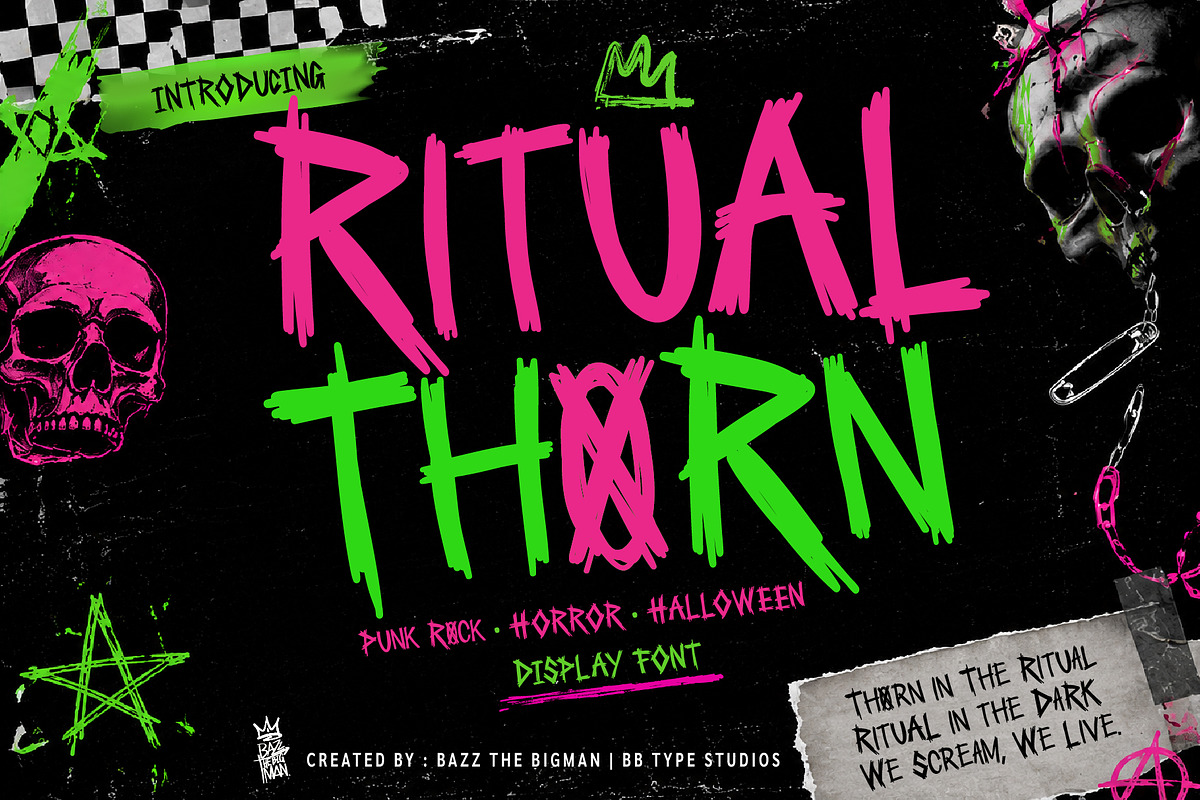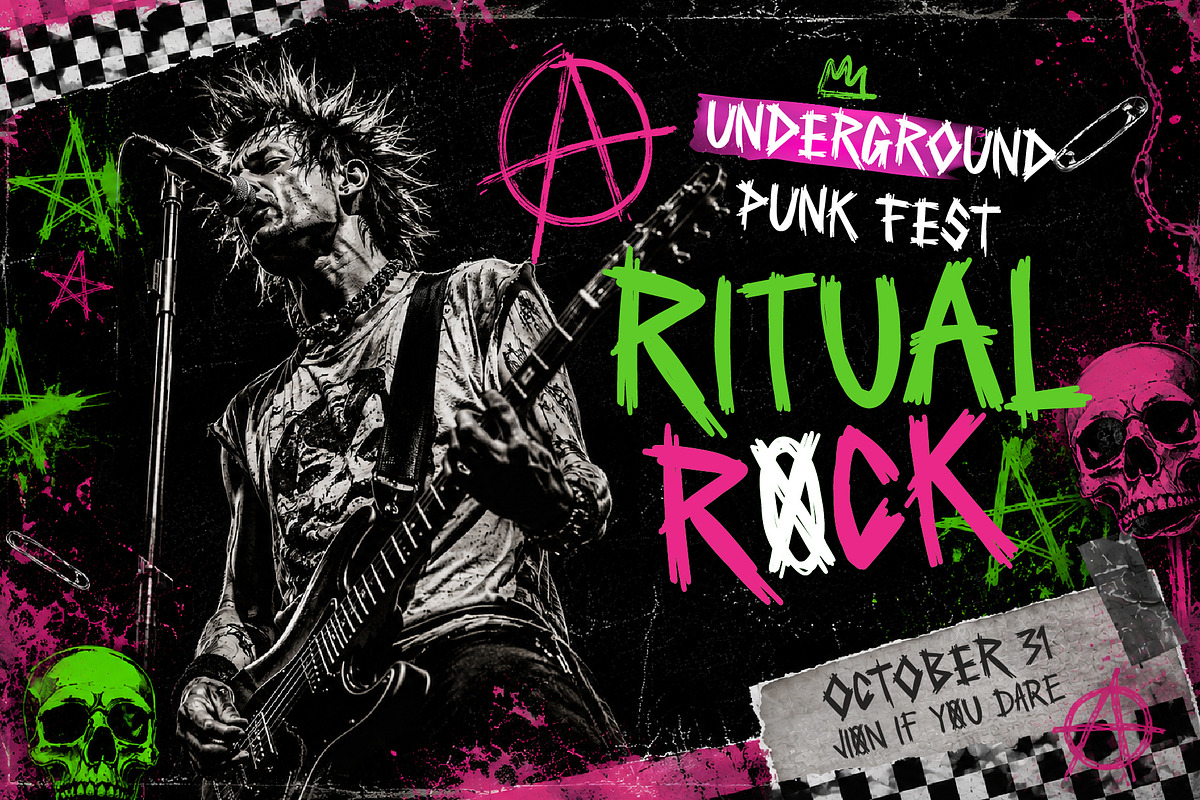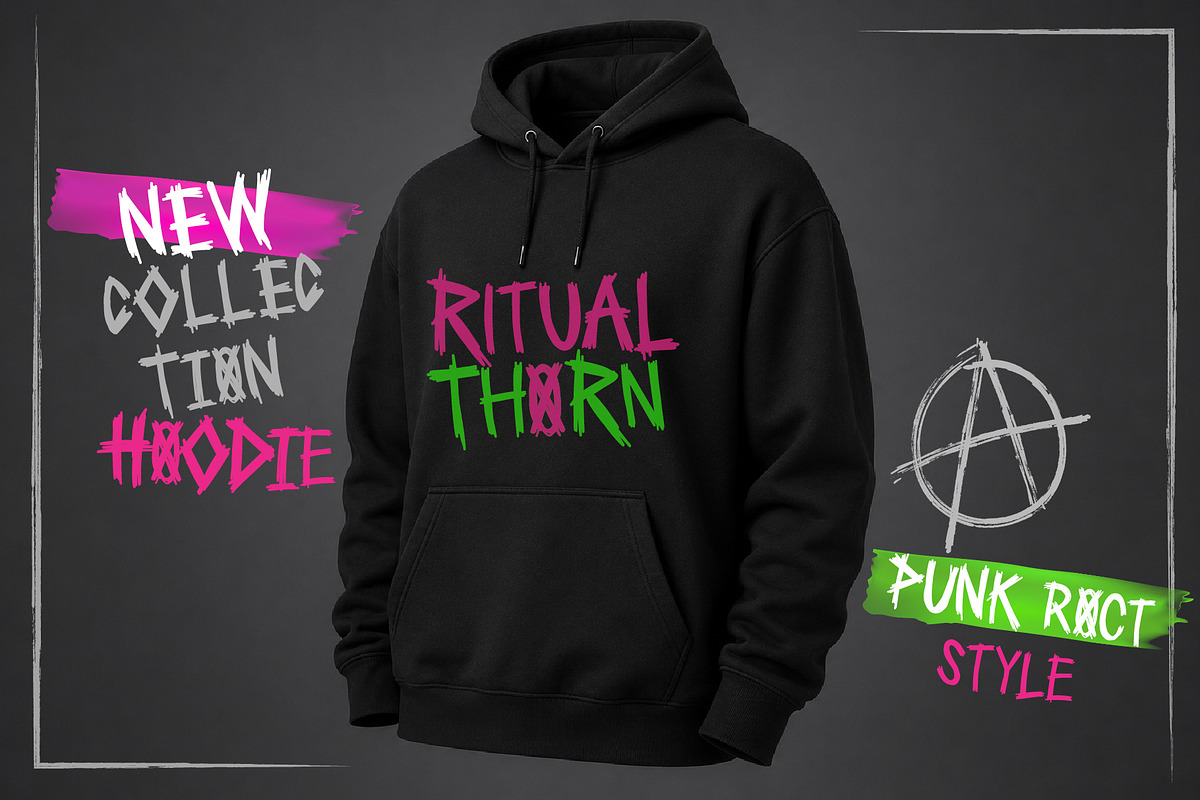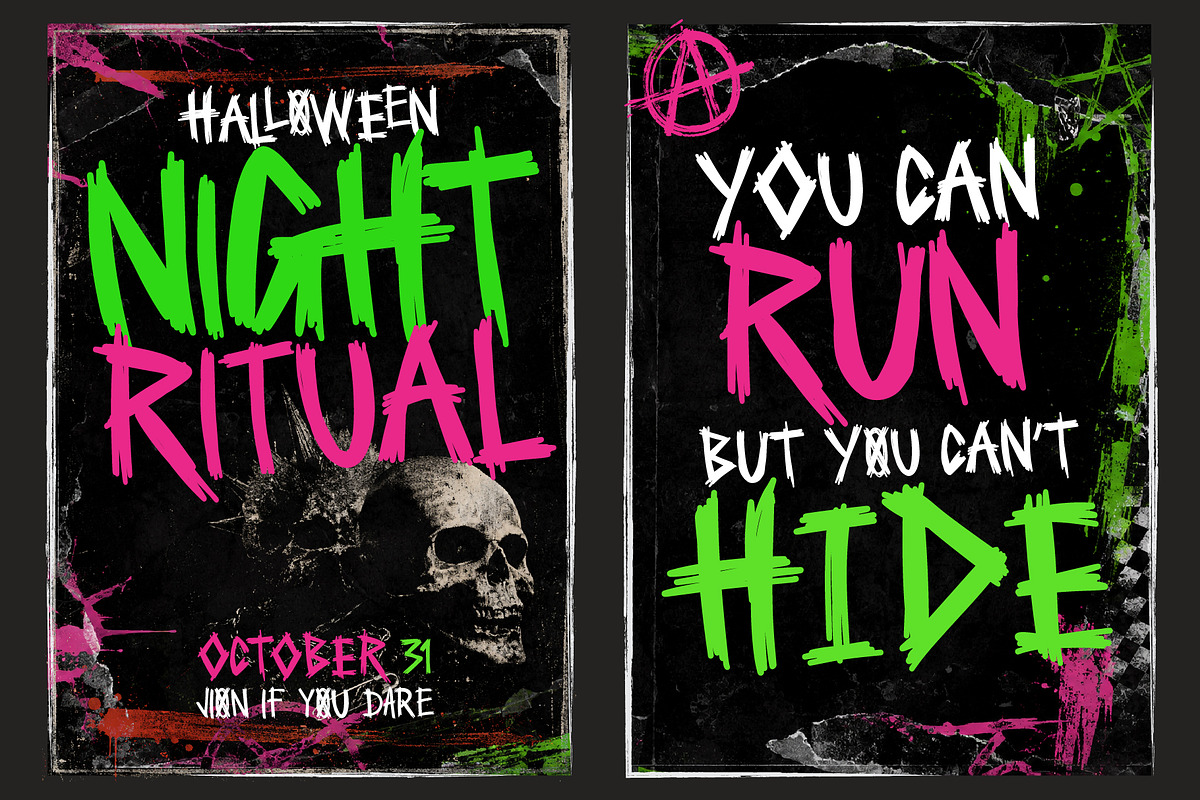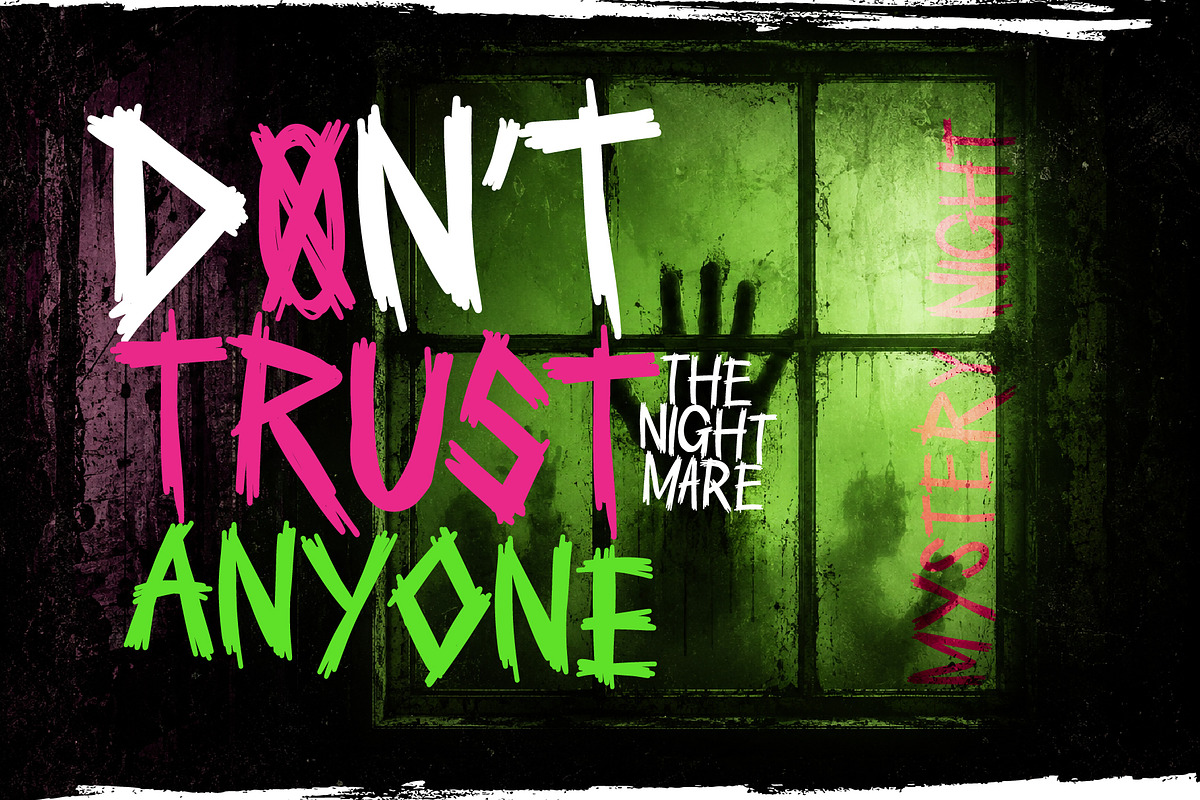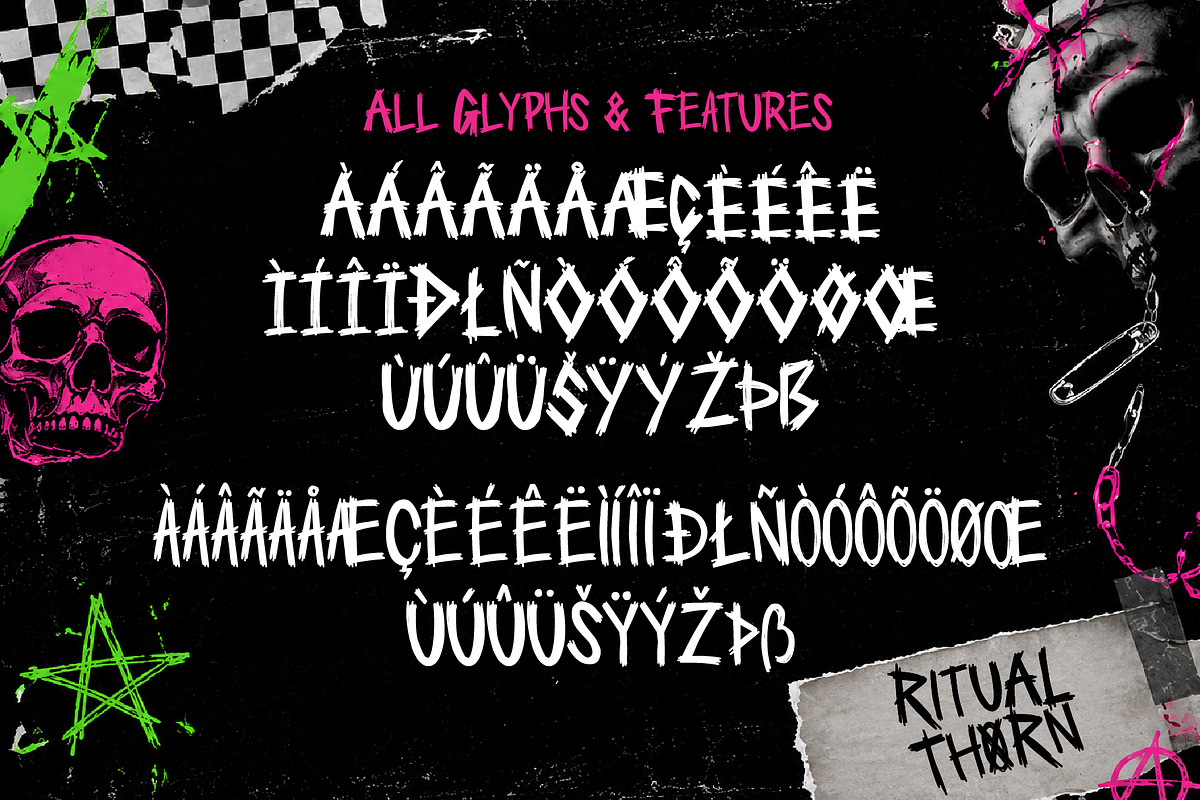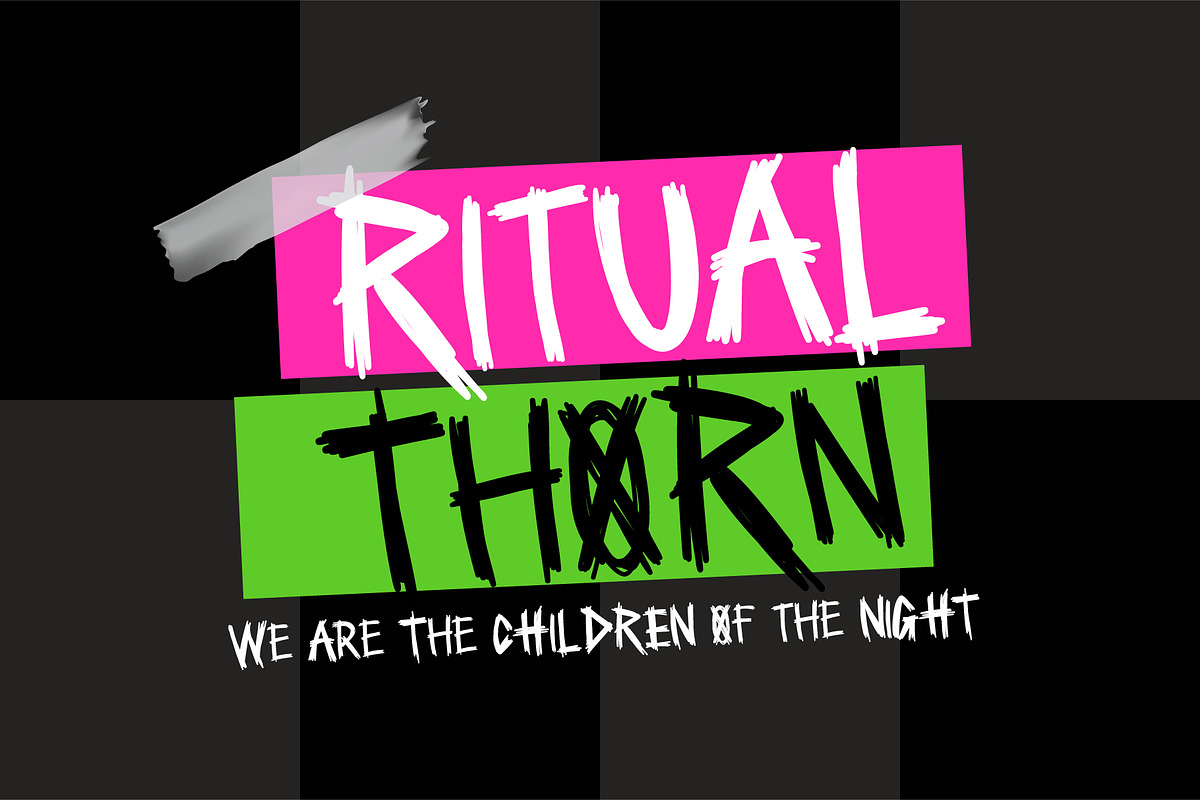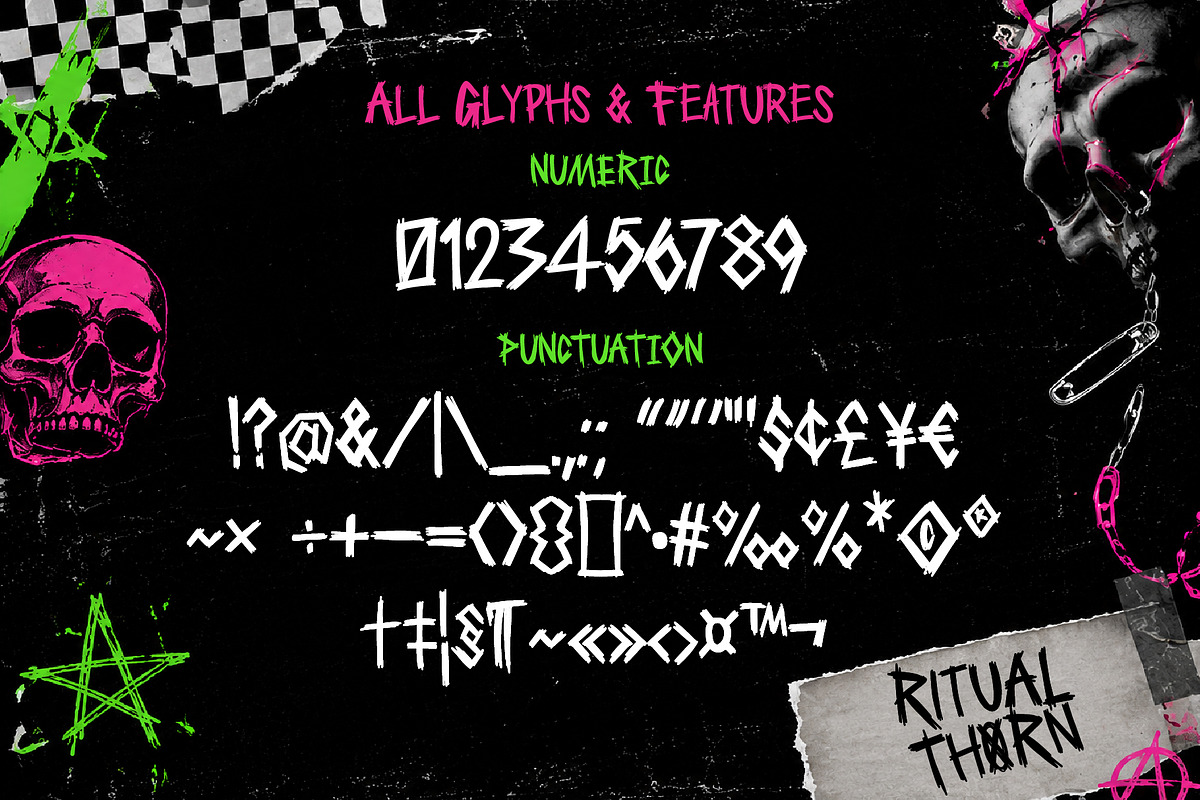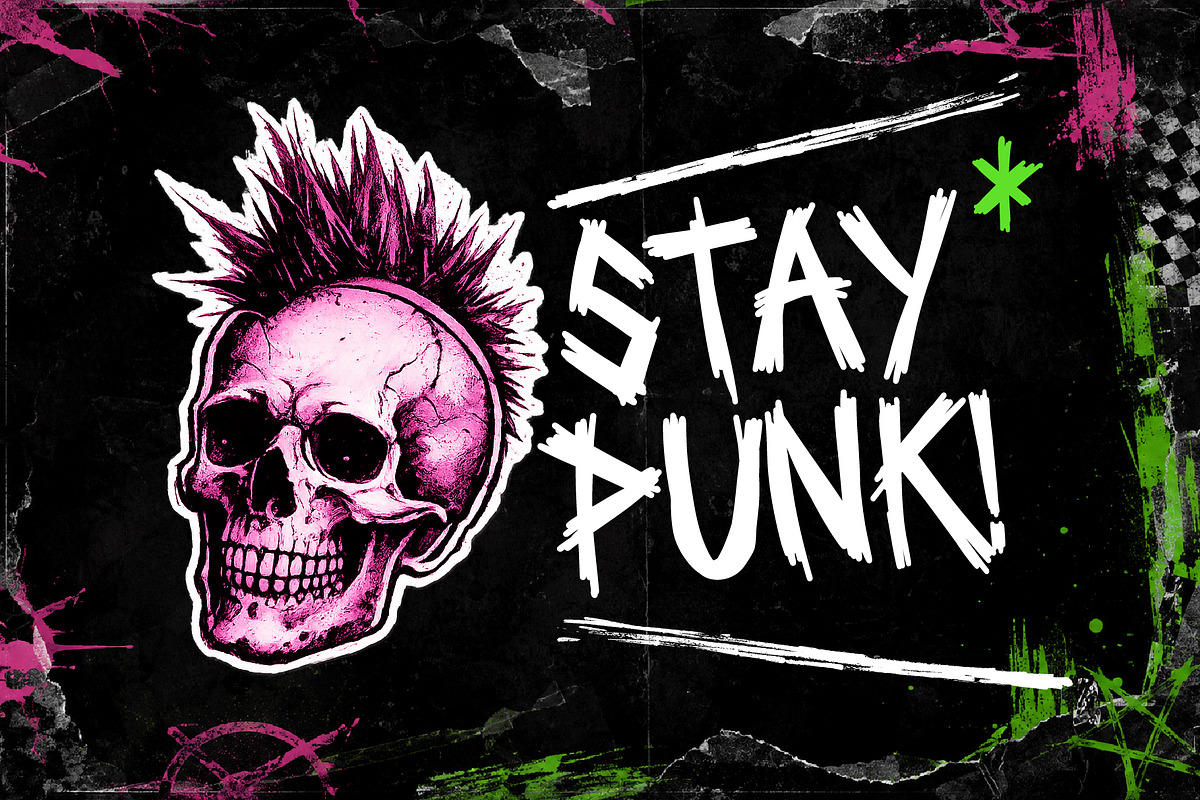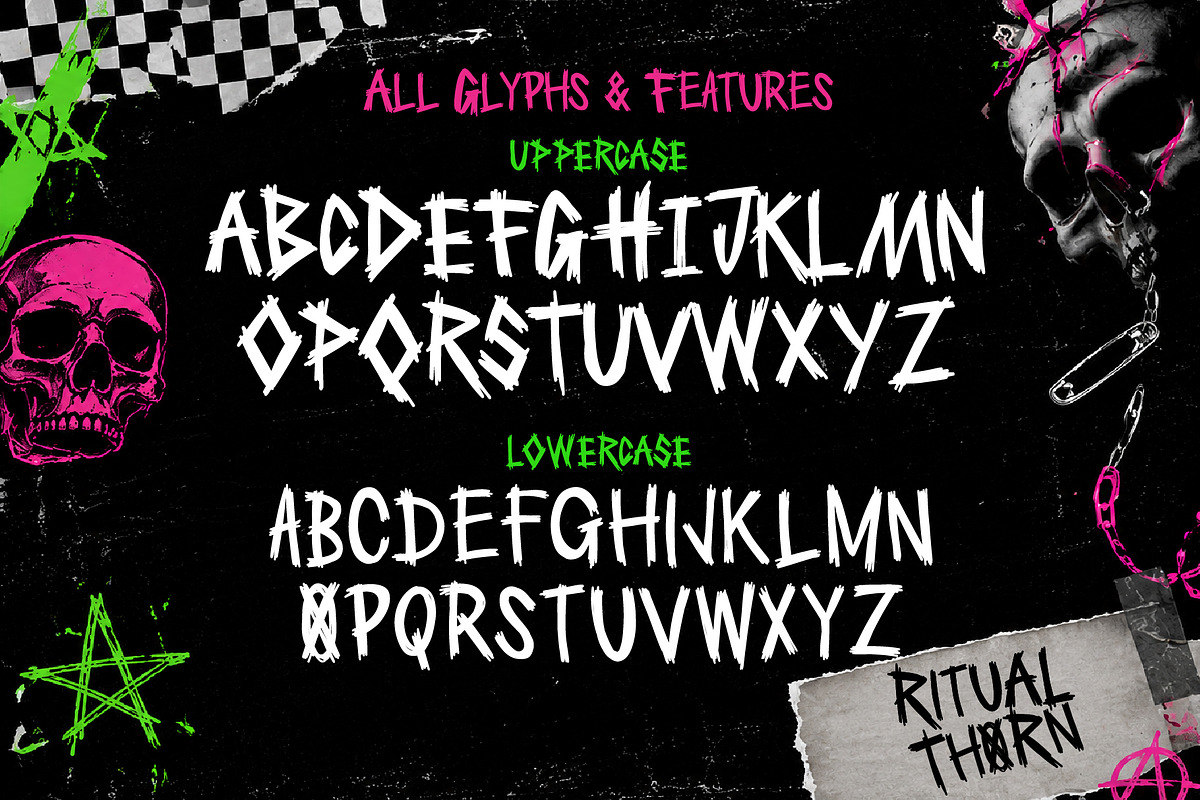
Ritual Thorn
RITUAL THORN
Punk Horror Display Font
Unleash the raw energy of punk rock and the dark atmosphere of horror with Ritual Thorn, a handcrafted display font featuring sharp, rough, and expressive letterforms.
Inspired by underground music scenes, graffiti, Halloween, horror movies, abandoned places, and ritual symbols, this typeface brings an authentic rebellious attitude to every design.
Perfect for eye-catching headlines and creative projects that demand a wild, fearless personality.
• Punk Rock Posters
• Halloween Designs
• Horror Movie Titles
• Album Covers
• Music Festival Flyers
• T-Shirt Designs
• Stickers
• Merchandise
• YouTube Thumbnails
• Gaming Graphics
• Social Media
• Branding
• Uppercase
• Lowercase
• Numbers
• Punctuation
• Multilingual Support